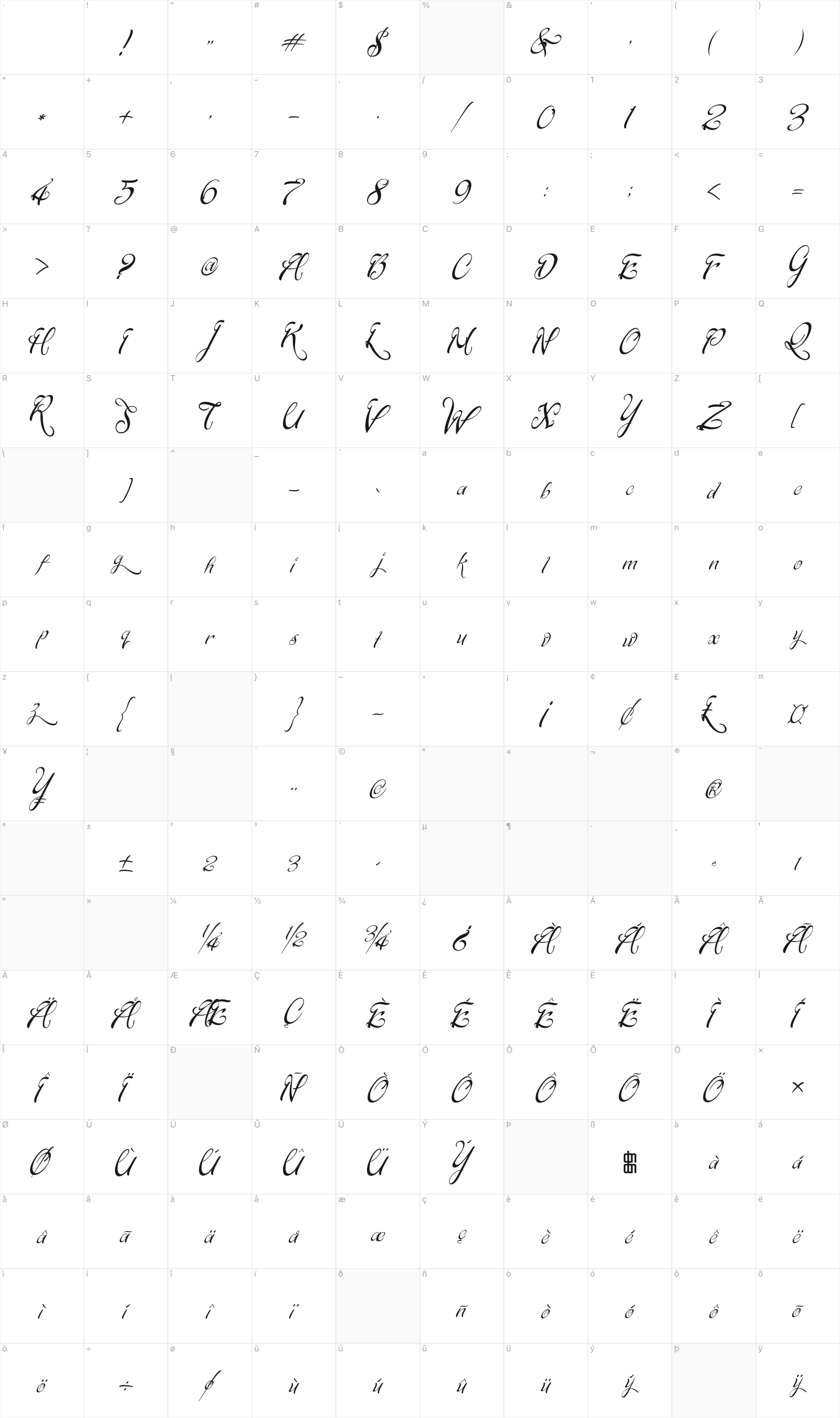
Signarita Chloe
Signarita Chloe is a delicate calligraphic script from dondon nillo with thin, flowing strokes and a distinctly feminine, romantic character. The cursive letterforms have an airy elegance that feels handwritten with a fine-tipped pen, making it a natural choice for wedding invitations, greeting cards, and formal stationery. It reads best at generous sizes where the fine details and graceful connections between letters can come through.